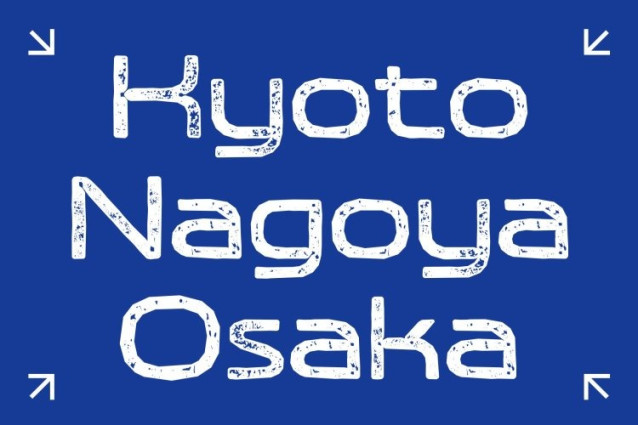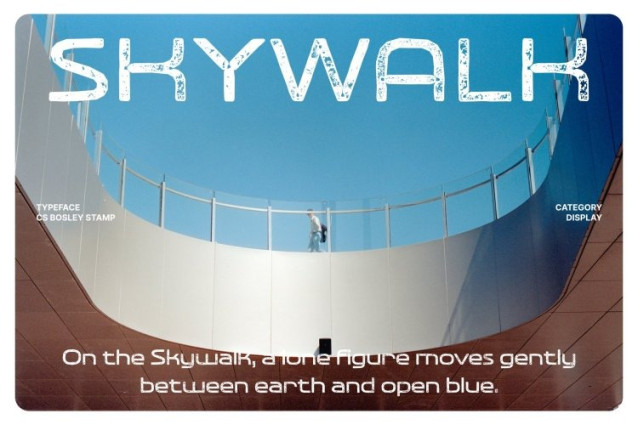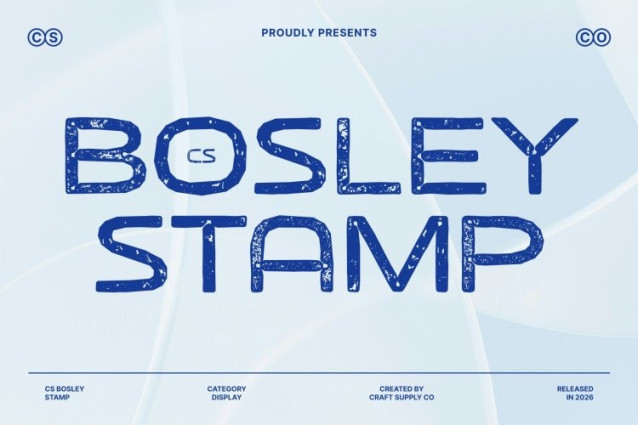
CS Bosley Stamp Font
CS Bosley Stamp Font This enhances its clean, contemporary sans-serif foundation with a subtle stamped texture that adds depth and tactile personality. The sleek, serif-free structure remains sharp and highly legible, while soft ink variations and lightly distressed edges introduce a handcrafted nuance. This fusion creates a modern typeface that feels both precise and expressive.
Distinctive Inktrap Details with Added Dimension
The defining inktrap features designed to emphasize corners and intricate letter details become even more visually engaging with the stamped effect. These carefully crafted cuts and angles gain additional contrast and character, making the structural details more noticeable and stylistically bold. The result is a font that balances technical precision with artistic warmth.
Clean, Contemporary, and Uniquely Striking
While maintaining its polished and professional appearance, this font offers a richer visual texture that prevents it from feeling overly mechanical. The combination of sharp inktrap forms and subtle print-inspired imperfections creates a dynamic tension between modern minimalism and analog authenticity.
Ideal for Modern Branding and Design Systems
Perfect for branding, logos, editorial layouts, packaging, and digital interfaces, this font delivers clarity with character. It’s especially effective in projects that seek a contemporary, detail-driven aesthetic while maintaining readability and sophistication across both print and screen media.